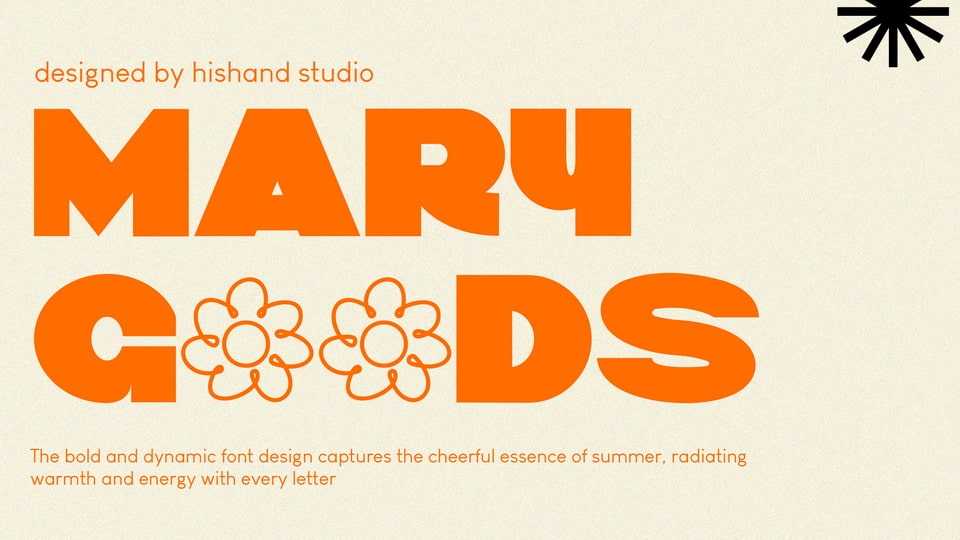
Download Mary Goods font, a bold sans-serif typeface that’s perfect for making your brand, product, and design shine. Mary Goods isn’t just a font it’s a branding powerhouse.